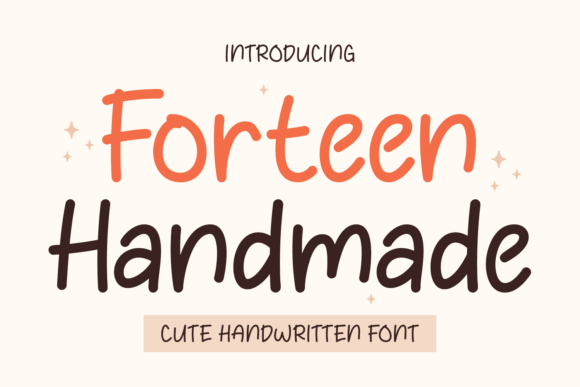
Remember that moment when you stumbled upon the perfect font for a project, and it instantly sparked a flood of creative ideas? For designers, finding the right typeface can be the difference between a good design and a great one. It’s that elusive combination of style and functionality that can make your message truly resonate with your audience.
Enter the Forteen Handmade Font, a delightful, handwritten typeface designed to bring a sense of joy and approachability to your designs. With its soft, rounded forms and friendly, casual rhythm, this font is perfect for crafts, children’s products, and cozy home-style branding. Whether you’re creating a logo or a classroom poster, the Forteen Handmade Font provides a charming, organic feel that instantly connects with your audience.
Forteen Handmade Font Key Features
• Character Count: Forteen Handmade Font contains a vast character set, including uppercase and lowercase letters, numerals, punctuation marks, and special characters.
• Unique Characteristics: This font features a unique, handmade aesthetic with subtle imperfections and irregularities, giving it a distinctive, artistic feel.
• Language Support: Forteen Handmade Font supports multiple languages, including English, Spanish, French, German, Italian, and many others, making it a great choice for global designs.
Designer Review: Forteen Handmade Font
First off, I want to say that I was really excited to dive into Forteen Handmade Font, and overall, it delivers. The quirky, handwritten feel is perfect for adding a touch of personality to your designs. ✨ The subtle imperfections and variability in the letterforms give it a unique, human touch that’s hard to replicate with more generic fonts.
Here are some specific things that work well:
• ✨ The font’s expressiveness is excellent, making it perfect for headings and titles where you want to convey a sense of excitement or whimsy.
• ✨ The font’s versatility means it can work well in a range of contexts, from branding to editorial design.
• ⚠️ The font can be a bit difficult to read in certain contexts, particularly at smaller sizes or in body text.
• ⚠️ Some of the letterforms can be a bit inconsistent, which may not be ideal for projects where precision is key.
Overall, I think Forteen Handmade Font is a great addition to any designer’s toolkit. While it may not be perfect for every project, it’s a great choice when you want to add a touch of personality and whimsy to your designs.
For the best results, use Forteen Handmade Font in conjunction with high-quality images and design elements.
Use Forteen Handmade Font for invitations, wedding stationery, and other creative projects.
Forteen Handmade Font is ideal for:
• Wedding invitations and stationery
• Custom lettering and typography
• Artistic and creative projects